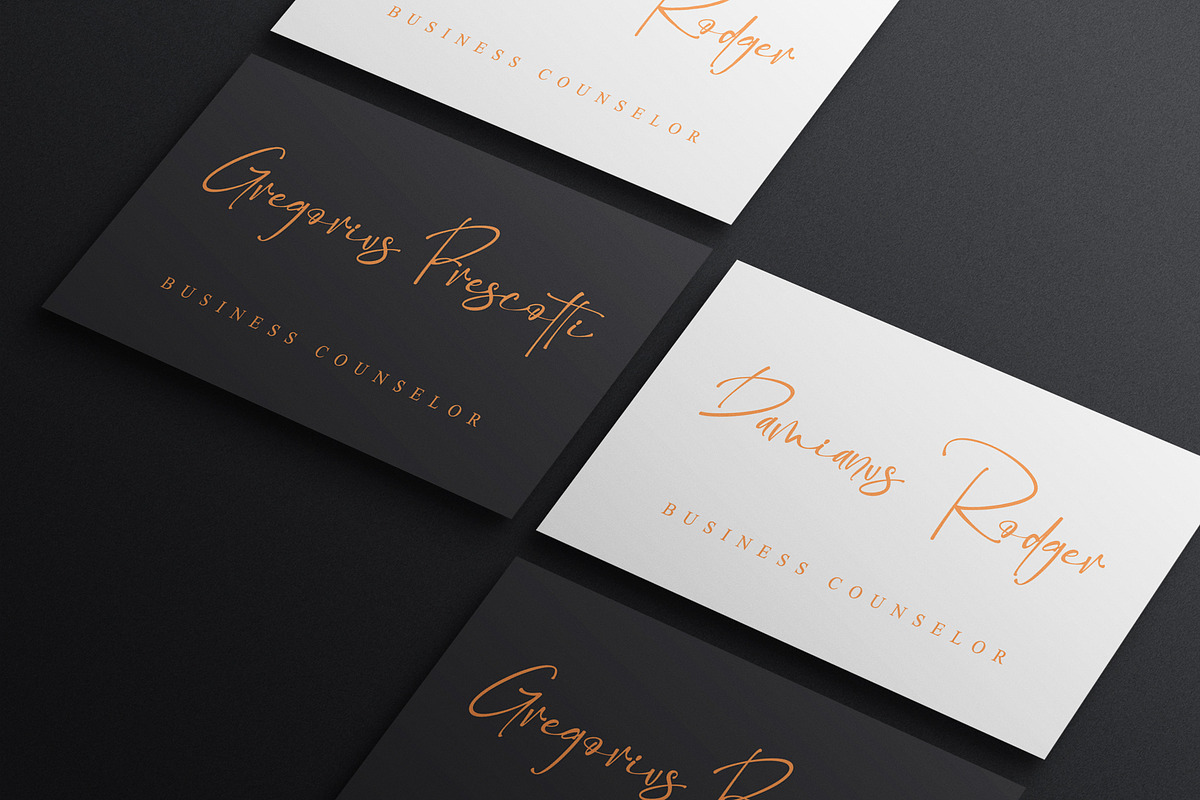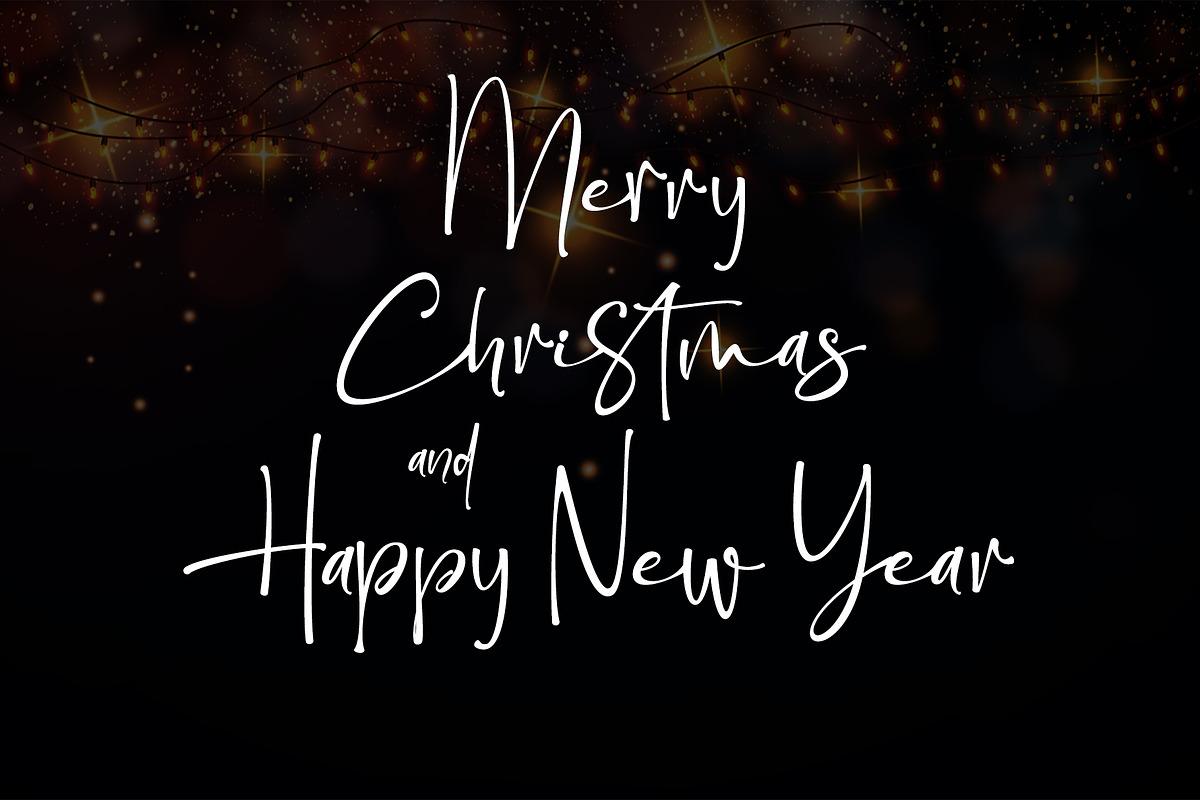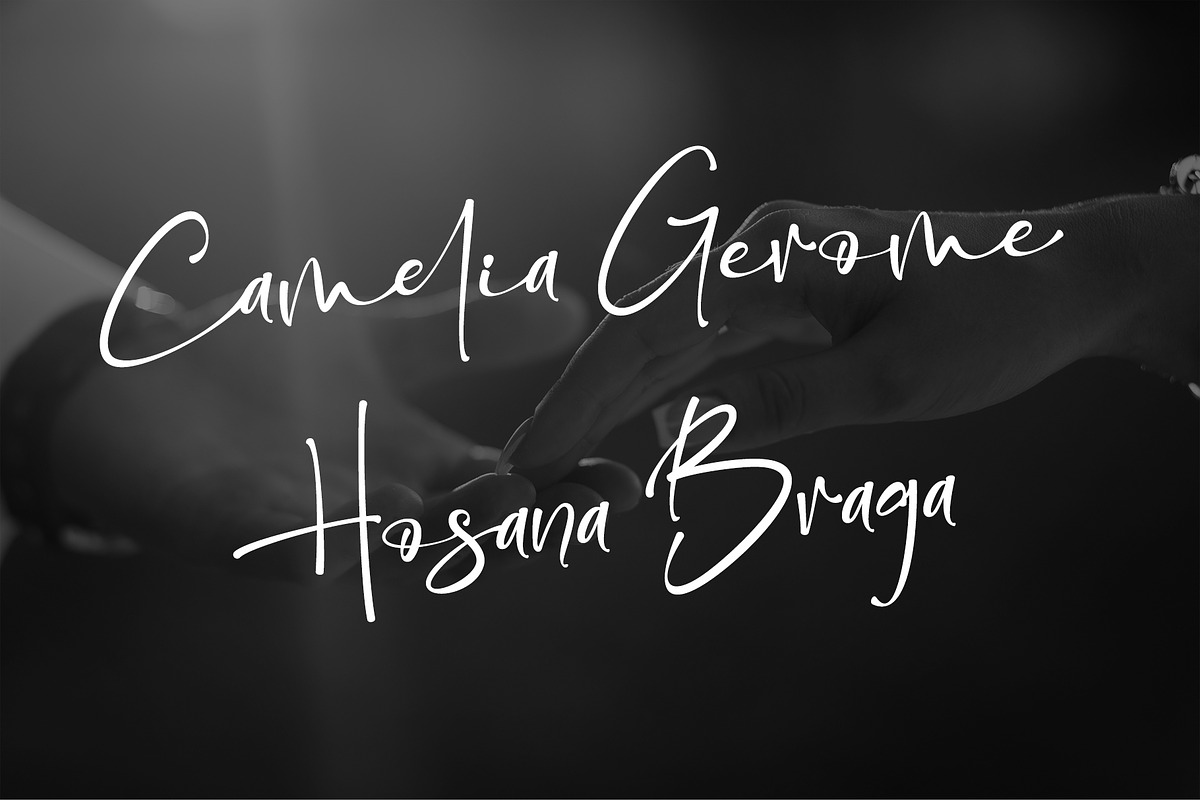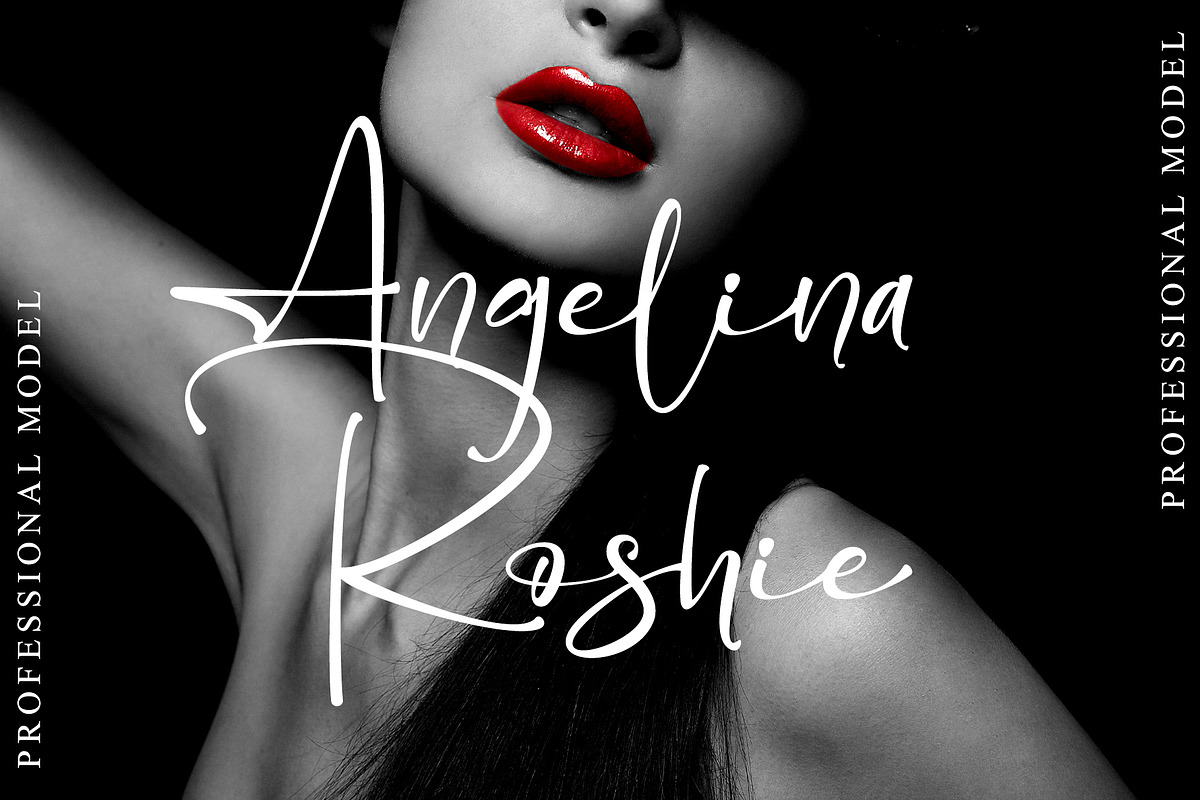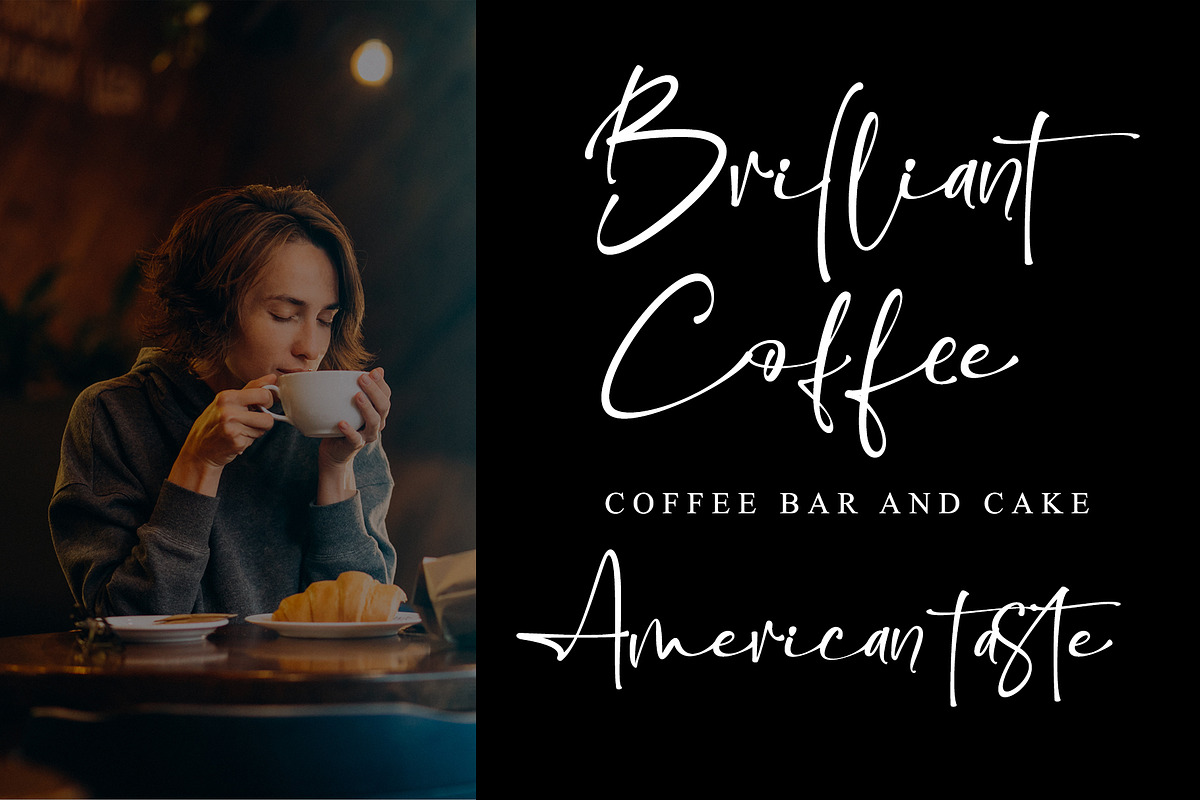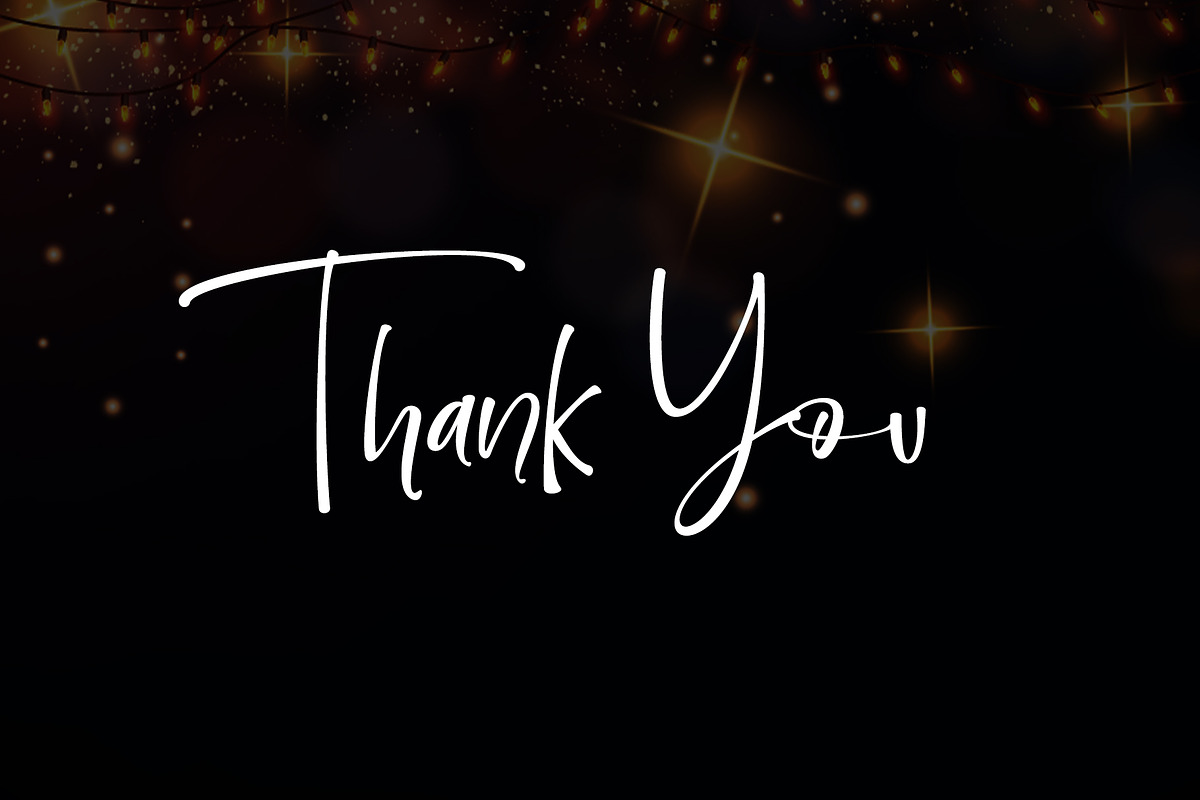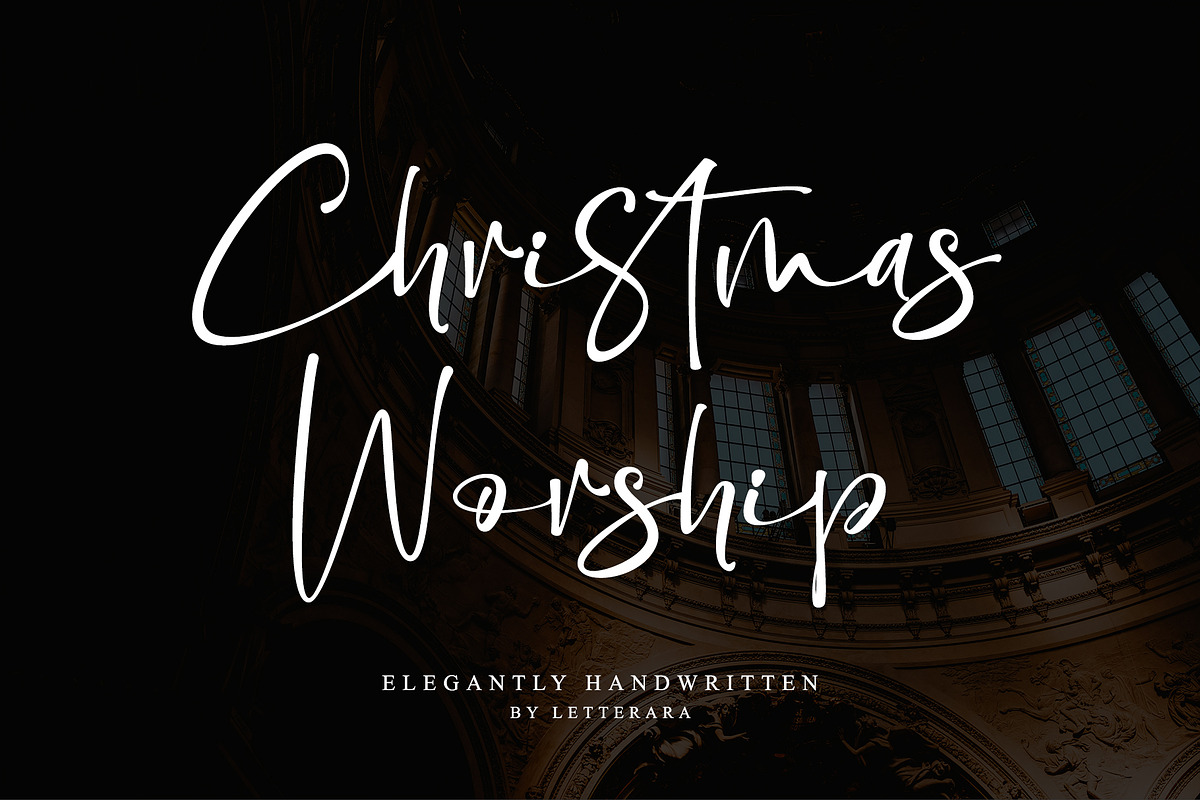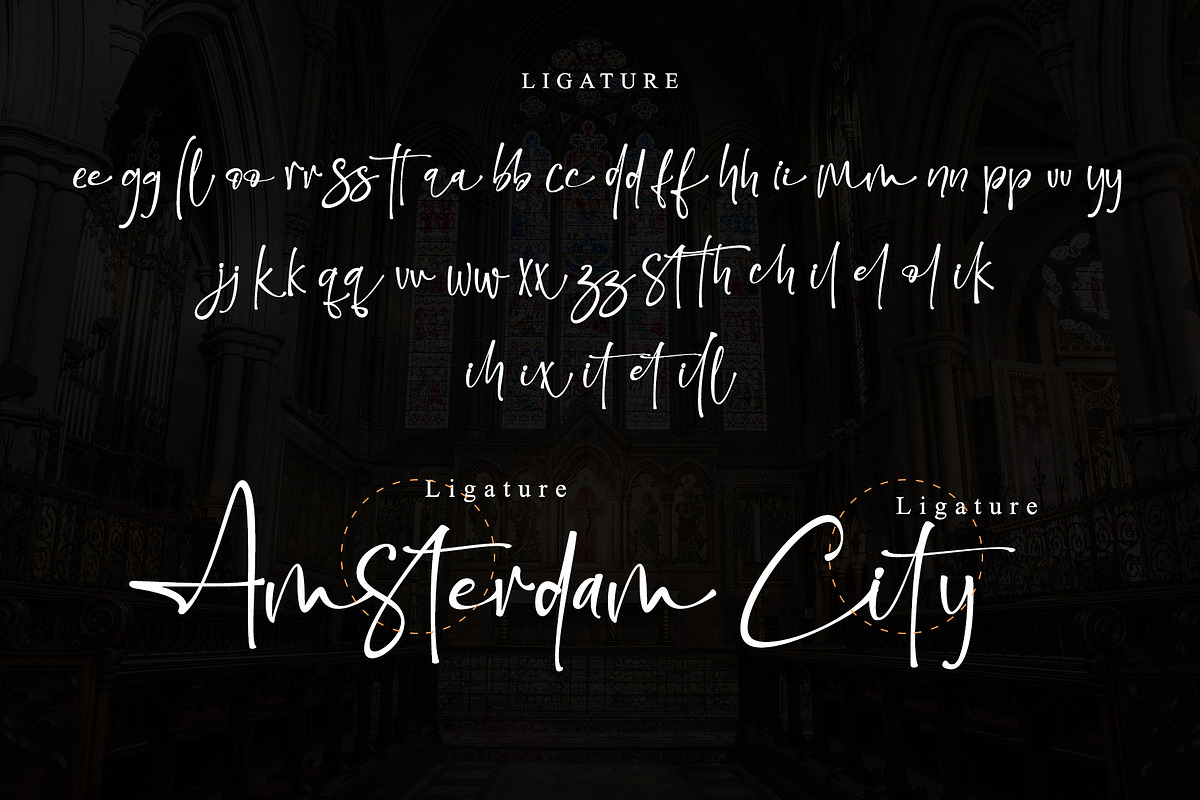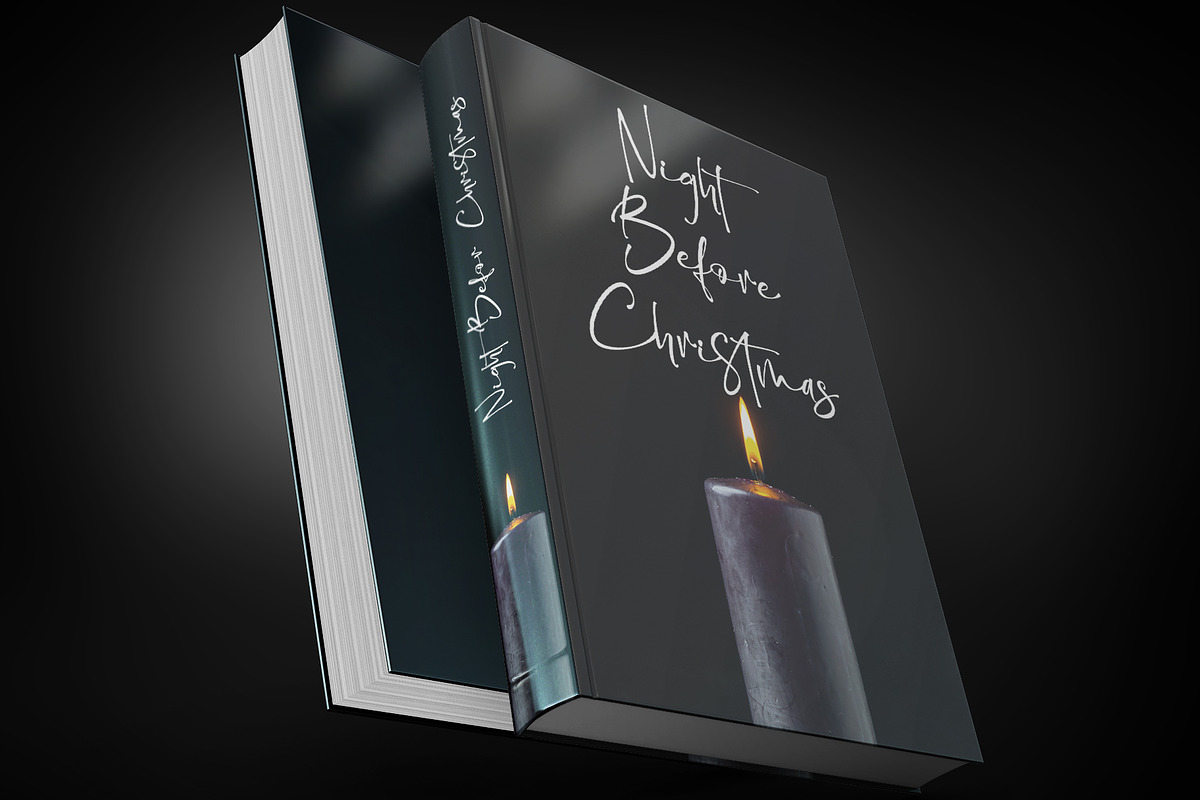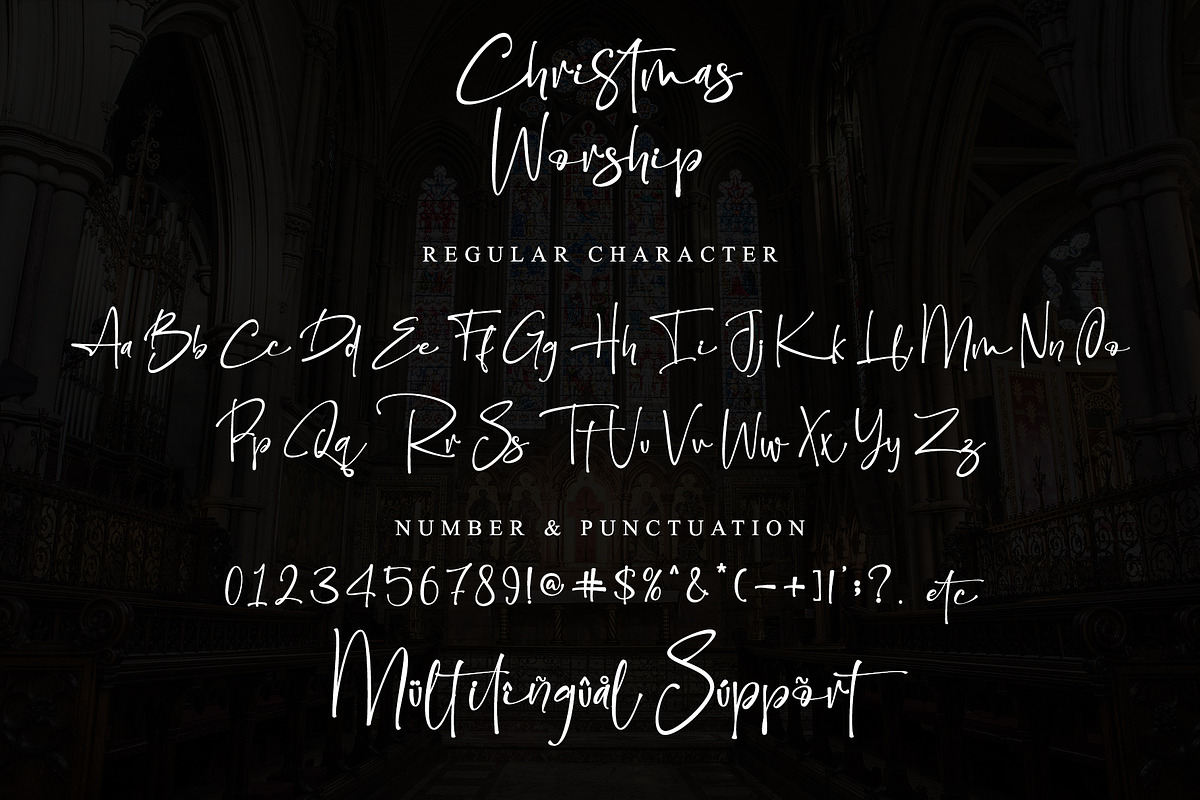
Christmas Worship
Christmas Worship is an enchanting natural handwritten font. This versatile script font has a wide spectrum of applications ranging from greeting cards, logos to headlines and is guaranteed to add an elegant or romantic feel to your next project. Add it confidently to your projects, and you will love the results. This font is PUA encoded which means you can access all the beautiful glyphs and swashes with ease!
- Support multilingual; ä ö ü Ä Ö Ü ß ¿ ¡
- lowercase and uppercase letters